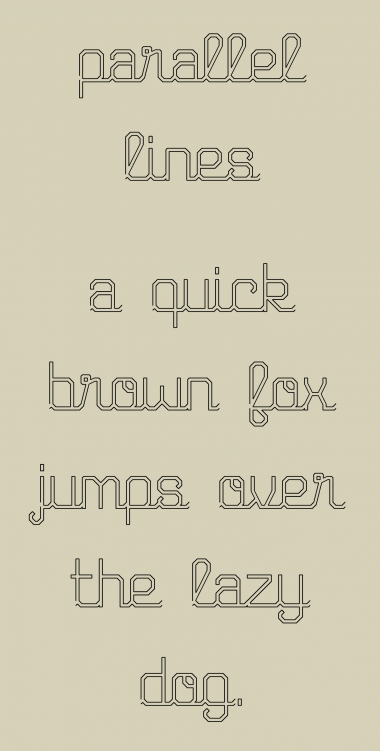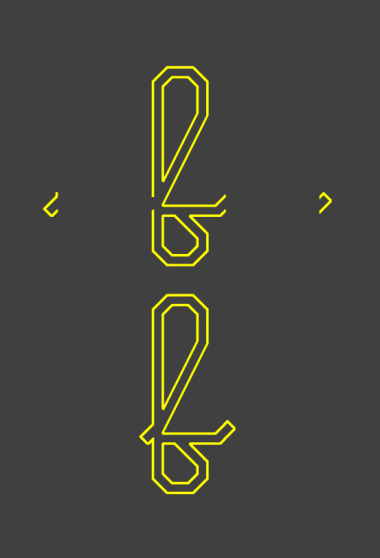
parallel lines
inspired by FIG script.
Love. Love. Love.
You may want to put beginning/ending glyphs on ,{},[],(),or «»
Very nice!
Just, the "S" and "s" seems a bit too curvy.
Y and T are indeed quite hard.
@winty5 - what to you think of these ends?
Tested those and they appear quite odd on v, x, z
you're right, i've got rid of the vertical line on the left one.
Those look great!